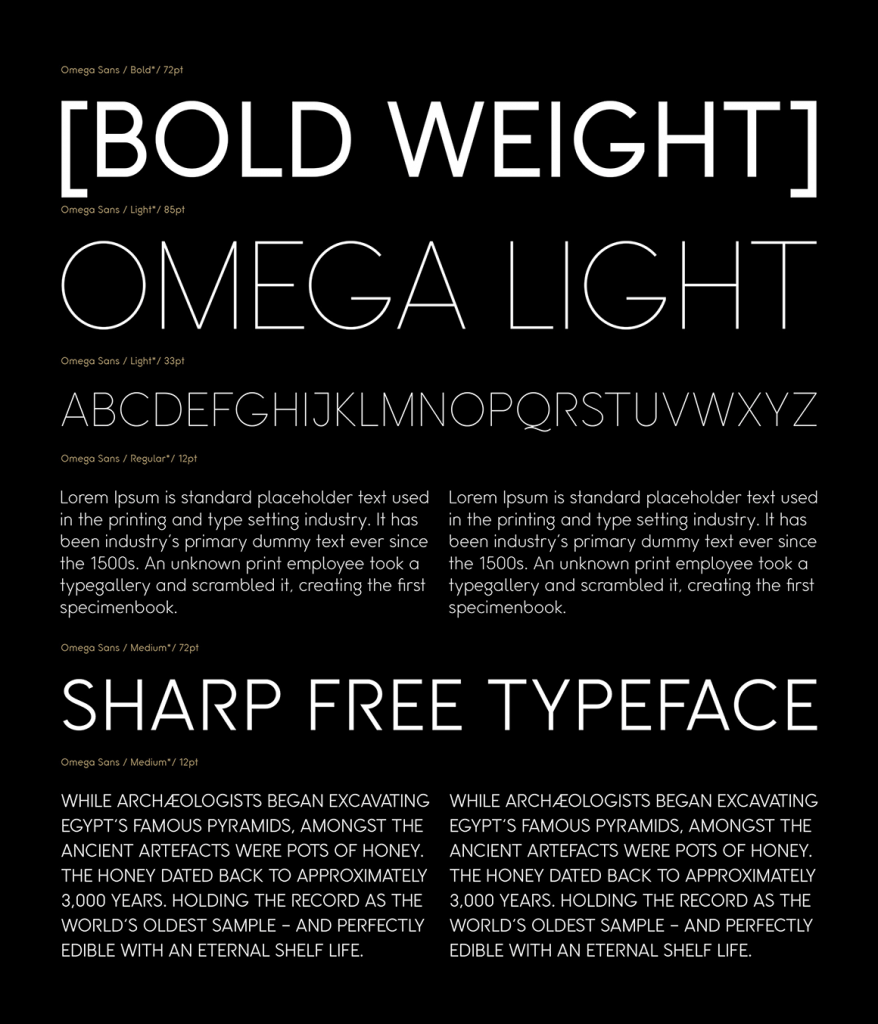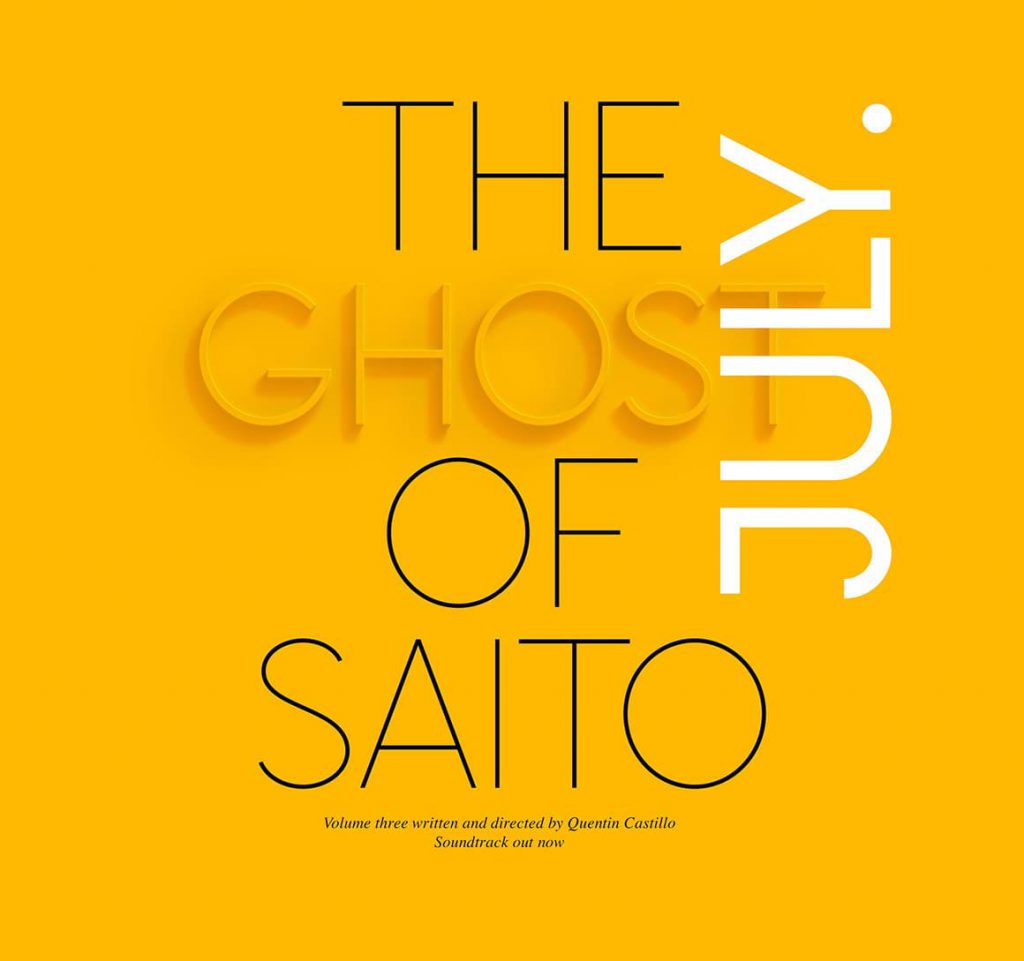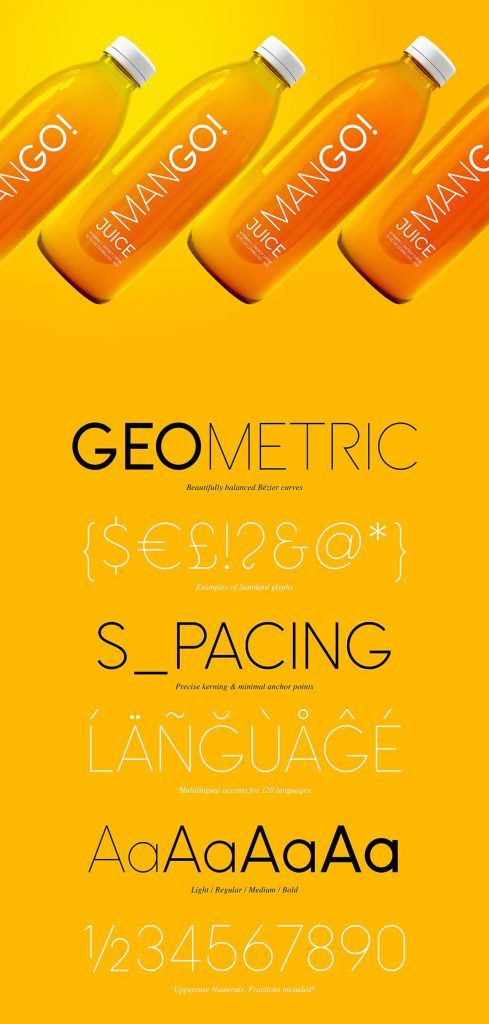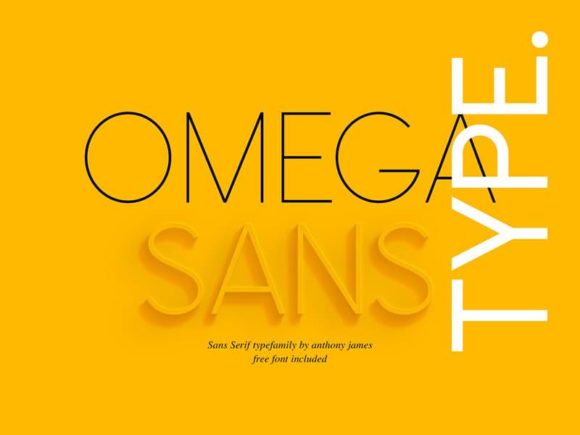
Omega Sans: A Classic Sans-Serif Font
Omega Sans is a classic sans-serif typeface built with balanced Beziér curves by Anthony James. This pleasant font is very versatile and it does look great for headings and titles.
The font family comes in 4 weights (regular is free to download, the other ones can be purchased for just $10) and it supports multilingual accents for 120 latin-based languages.